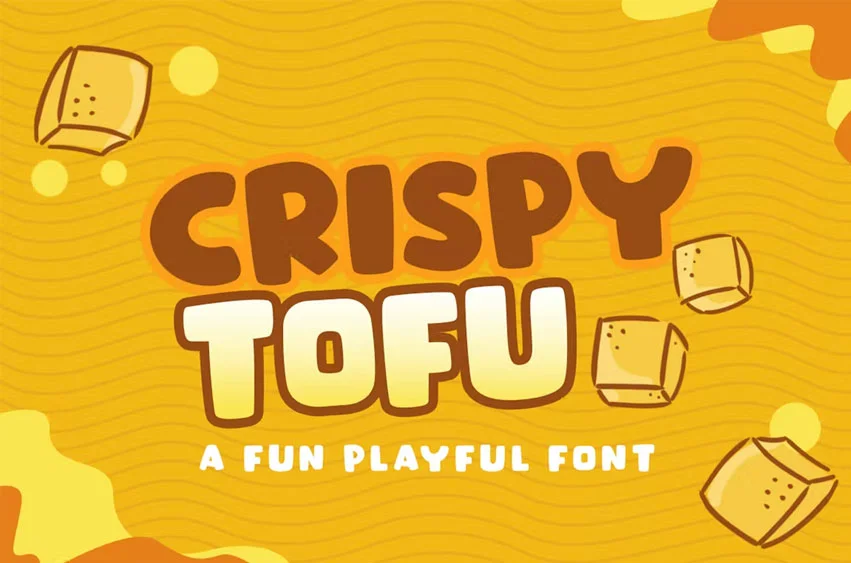
Crispy Tofu Font
Crispy Tofu Font a fun display typeface with cheerful theme for your fun project. Crispy Tofu font suitable for logo, branding, greeting card, poster and any design that you create.